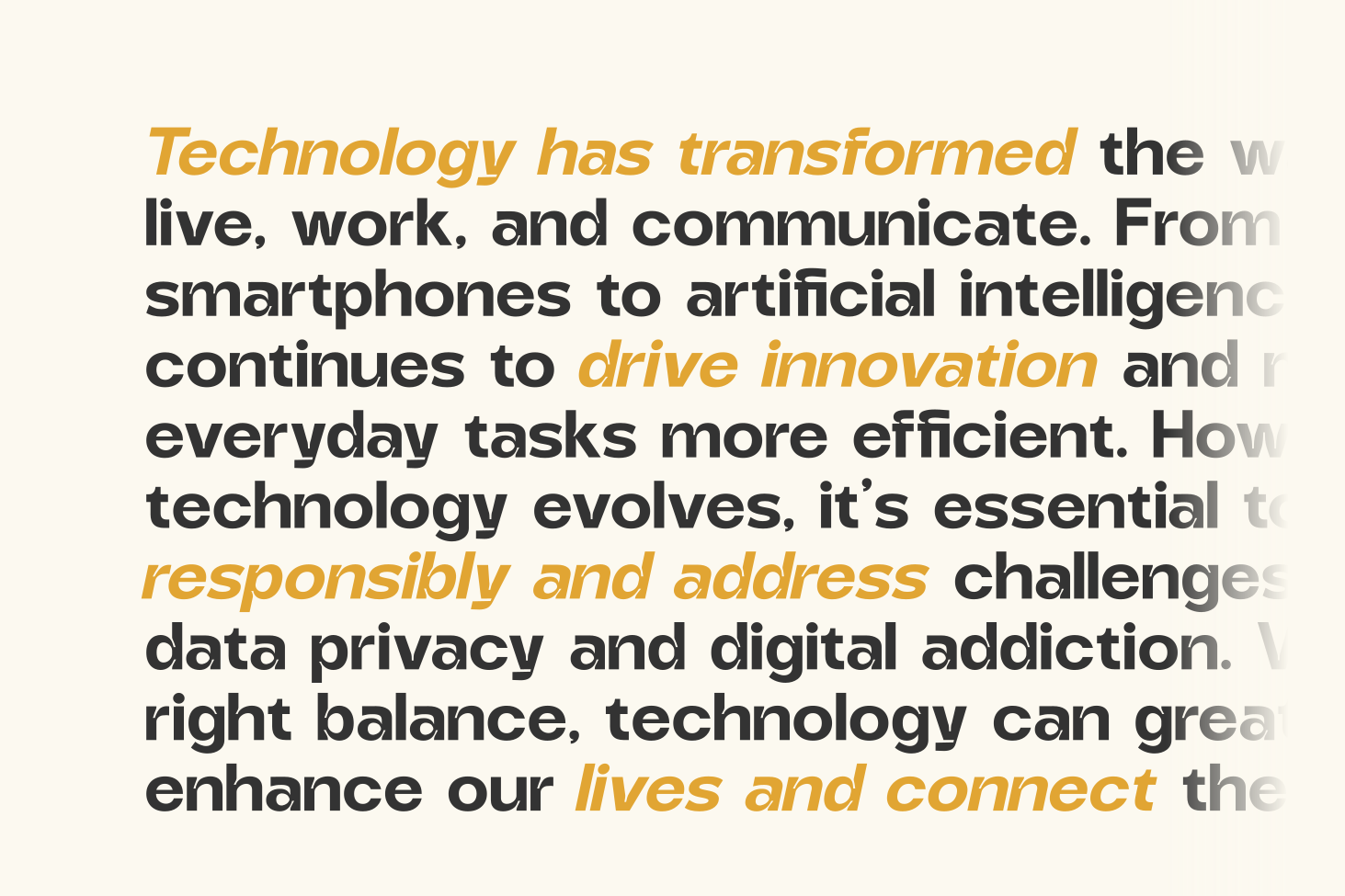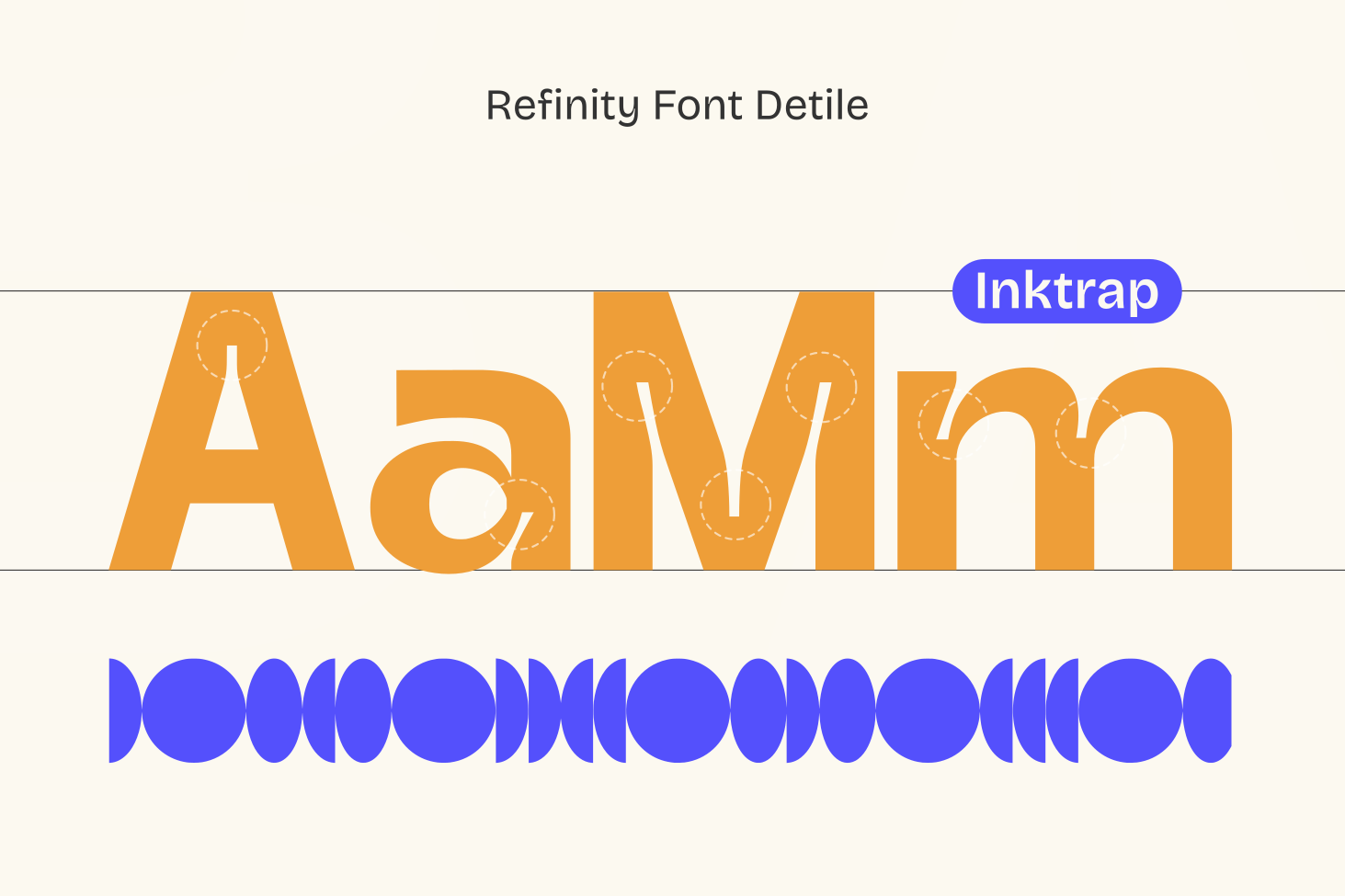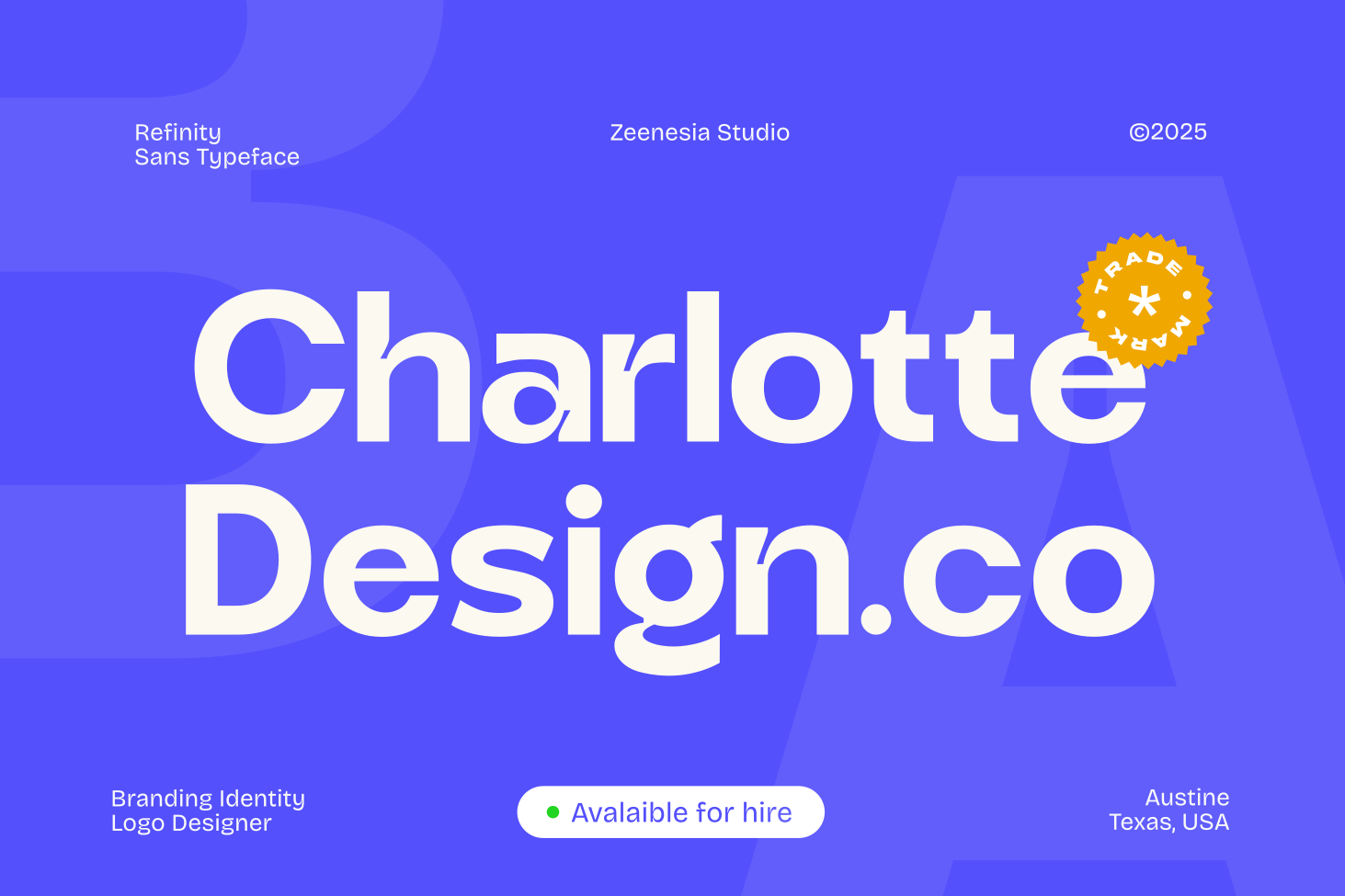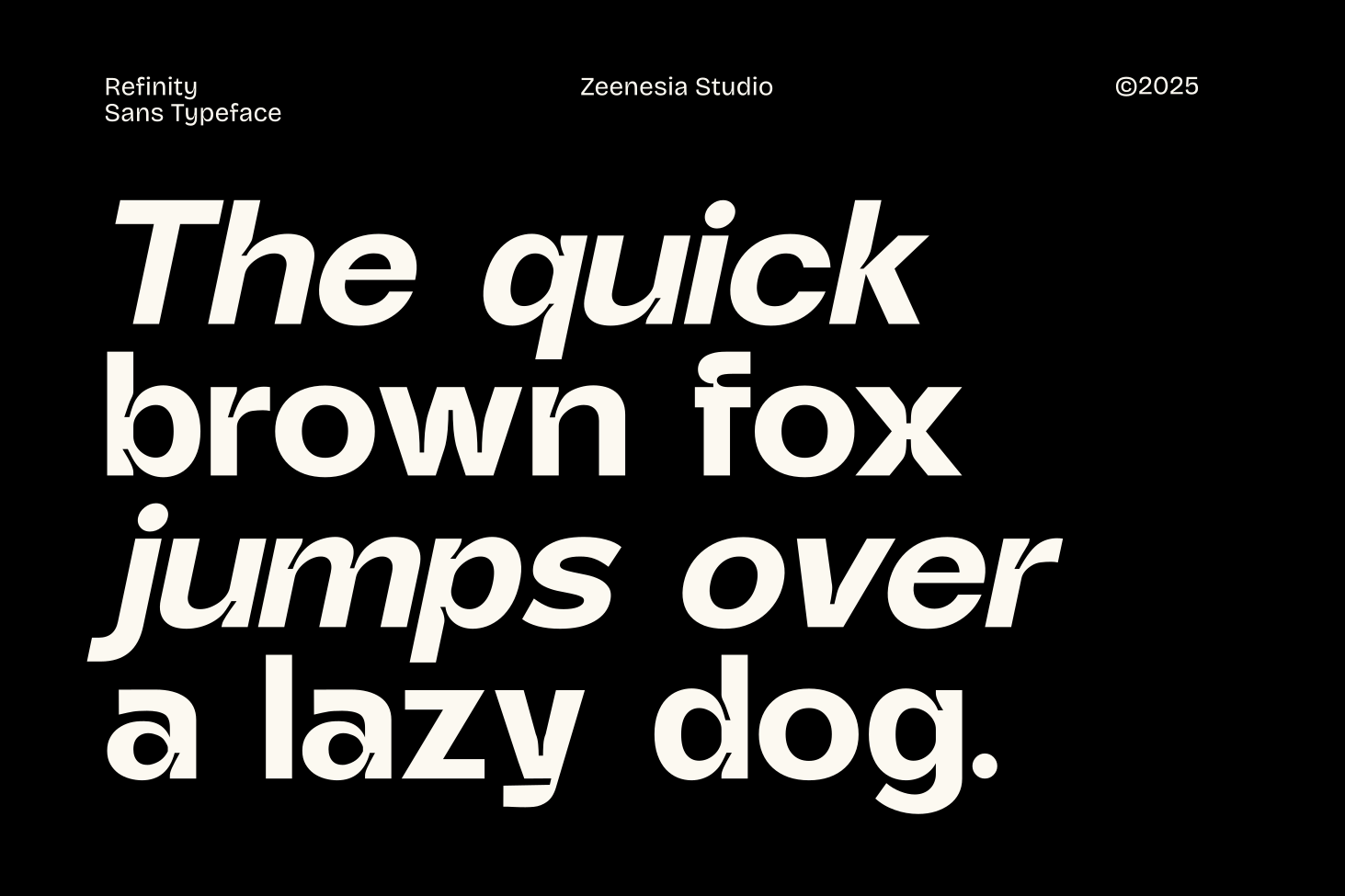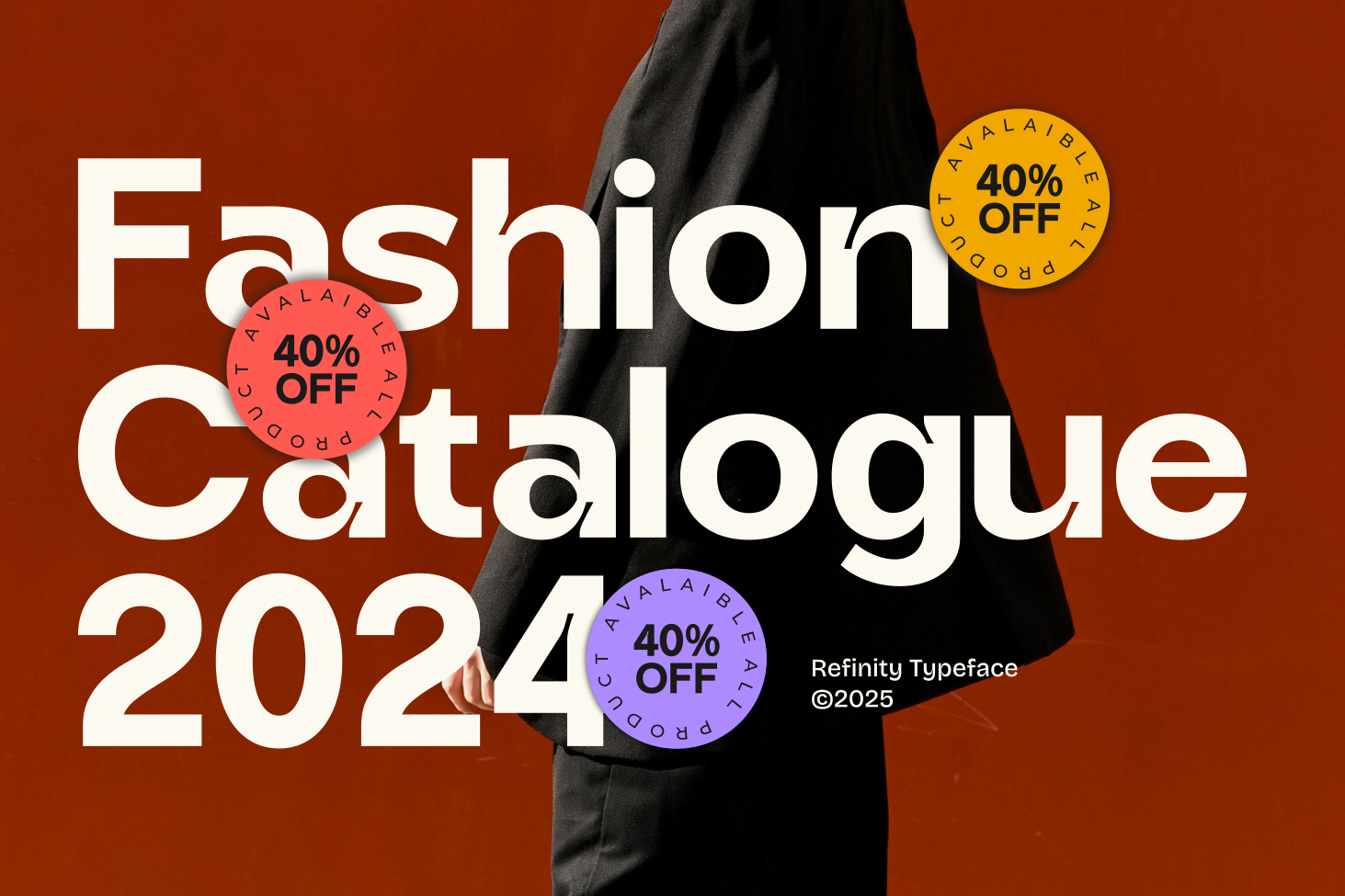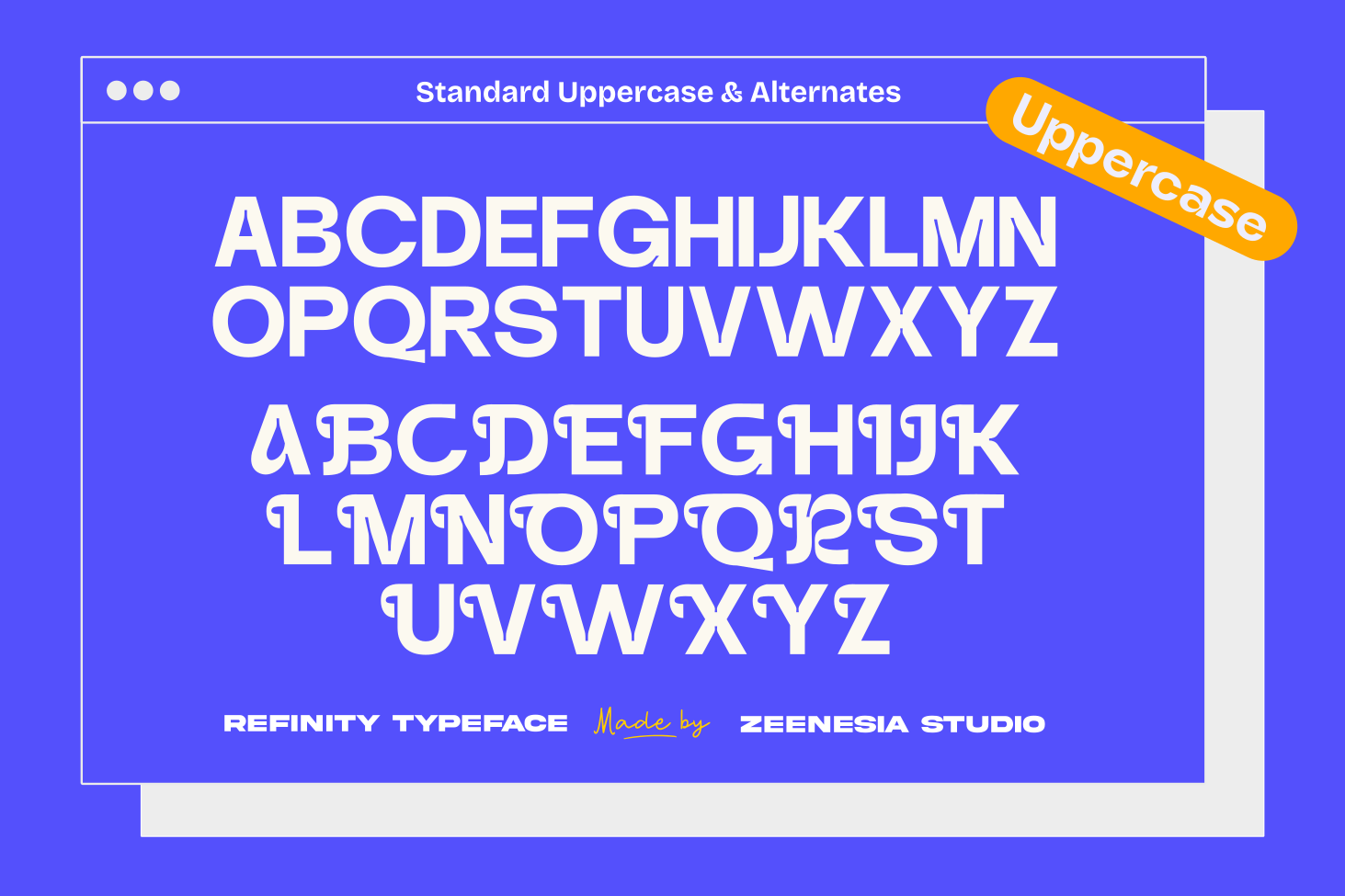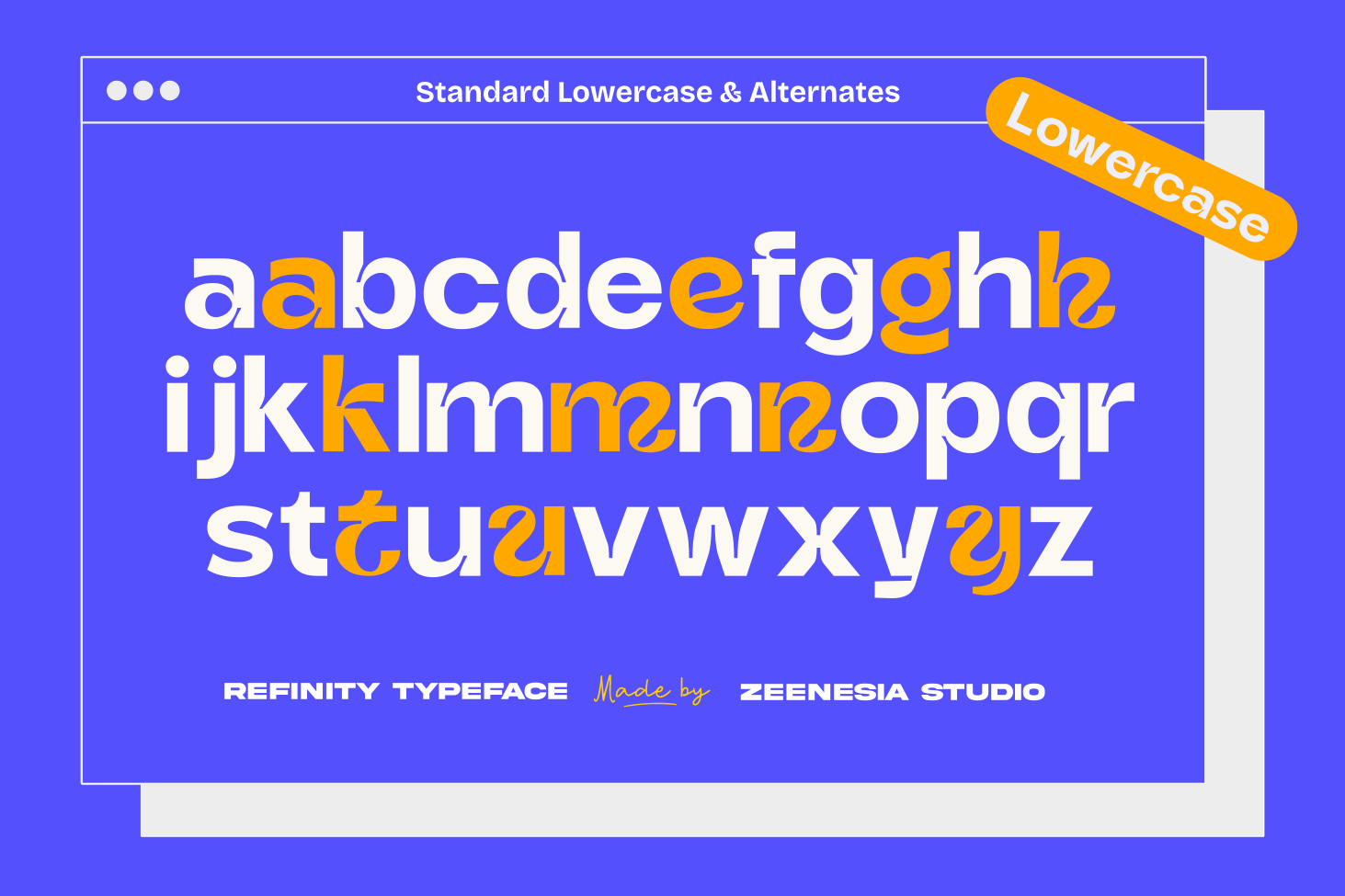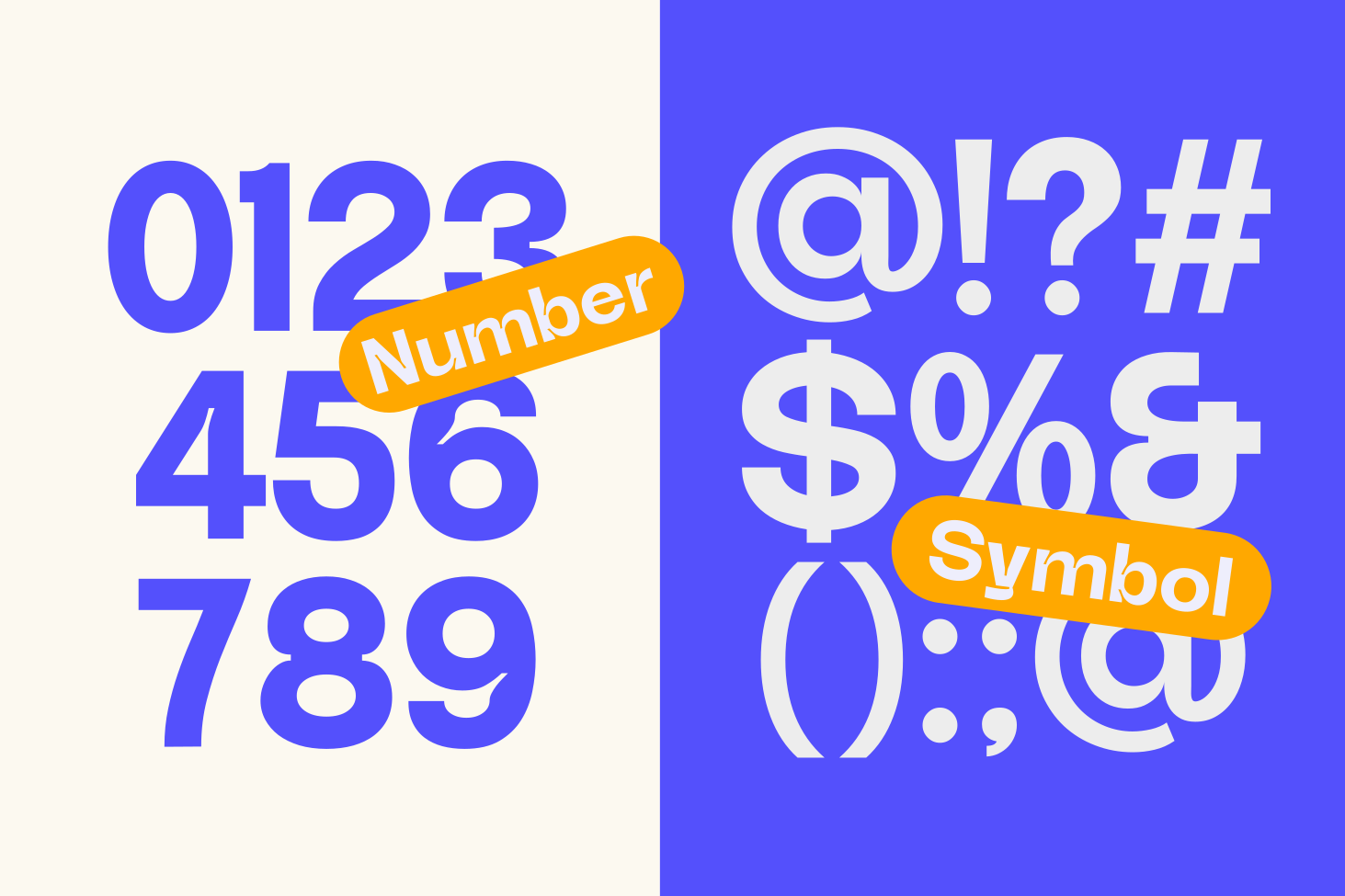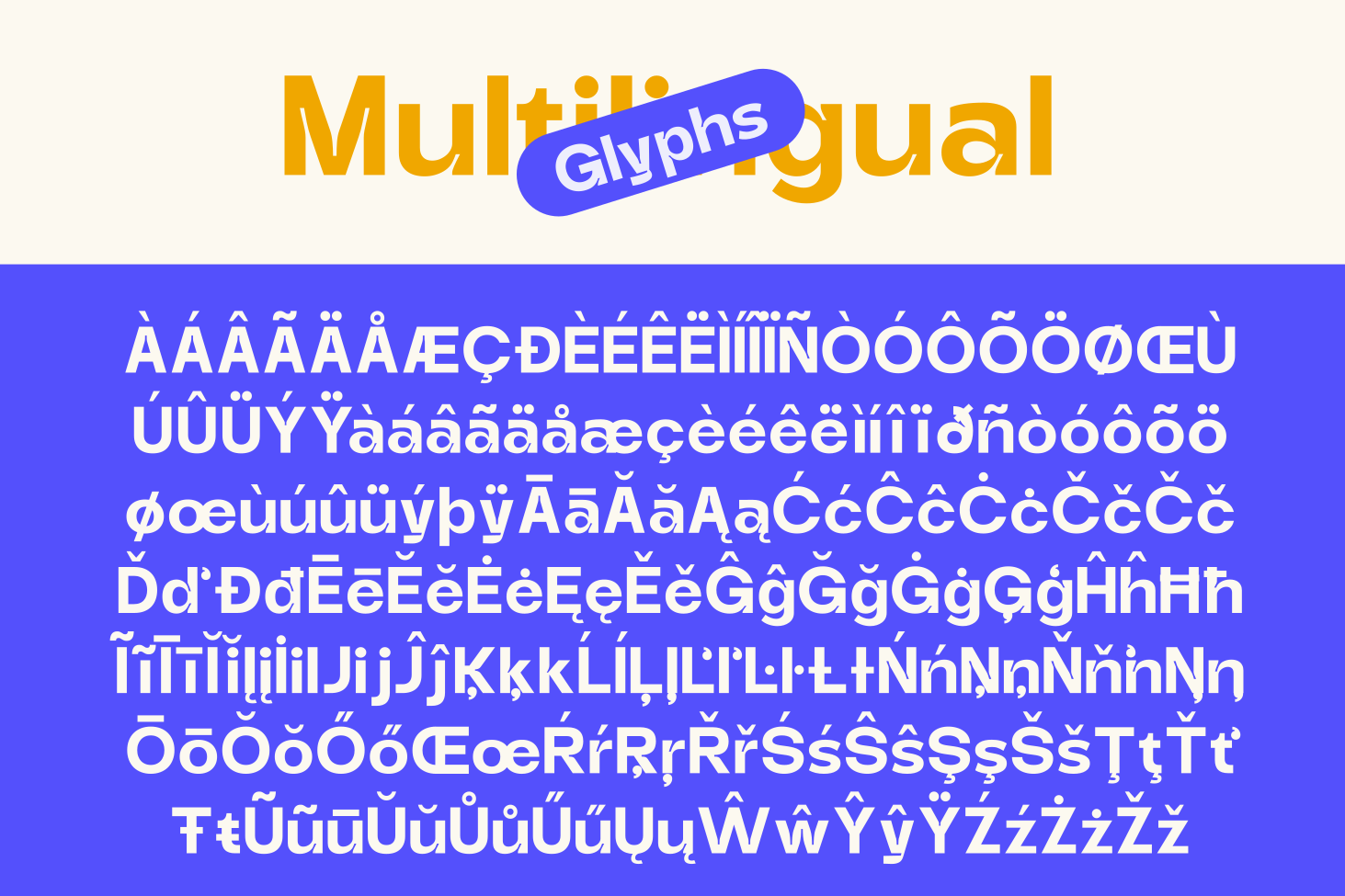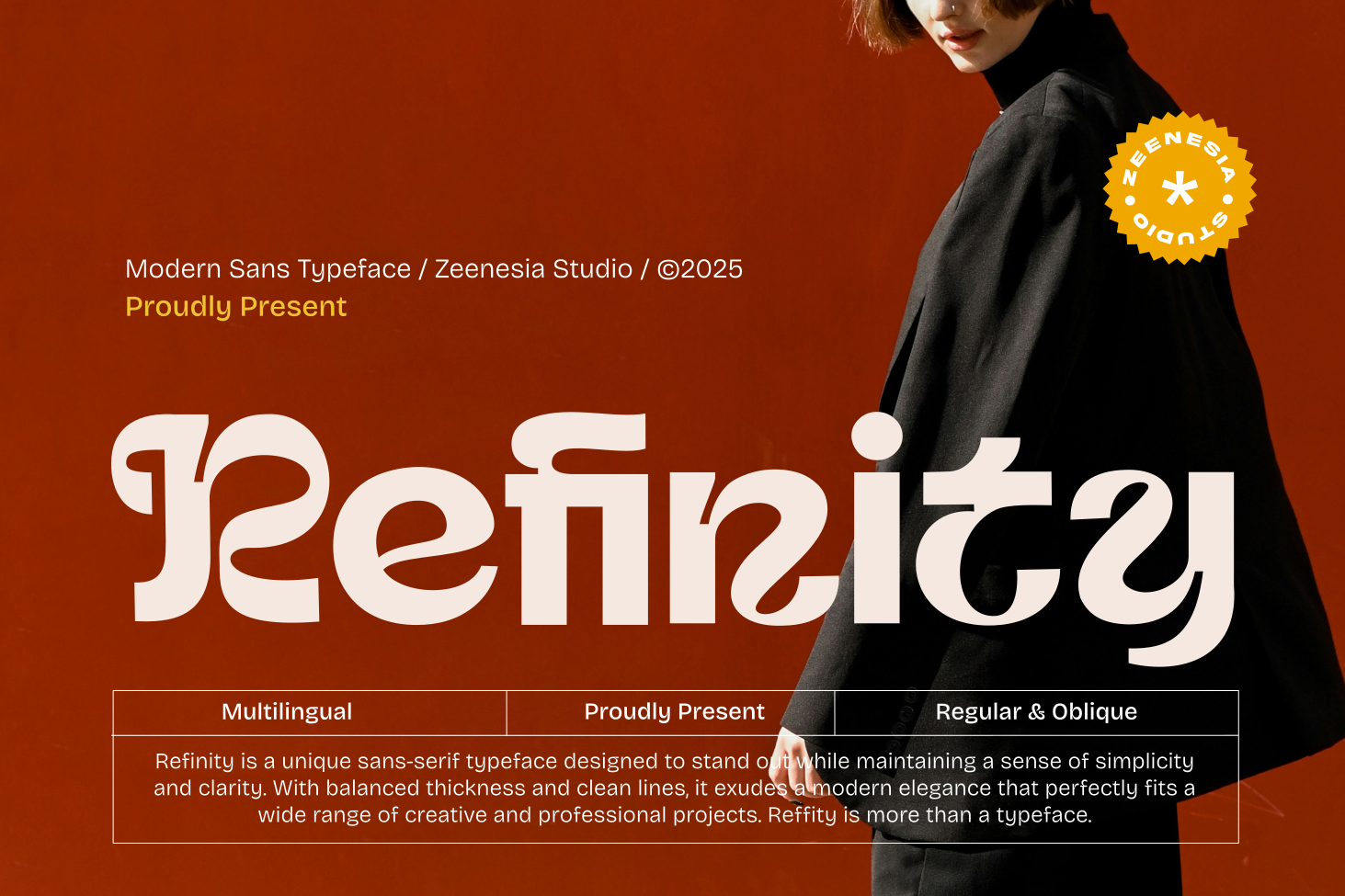
Refinity
zeenesia
Refinity created by zeenesia – A Modern Sans-Serif Masterpiece
Refinity is a sleek and contemporary sans-serif font that embodies elegance and clarity. Designed with precision and attention to detail, this font is perfect for modern branding, editorial design, and user interfaces. Its clean lines and balanced proportions make it both versatile and timeless, suitable for any creative project.